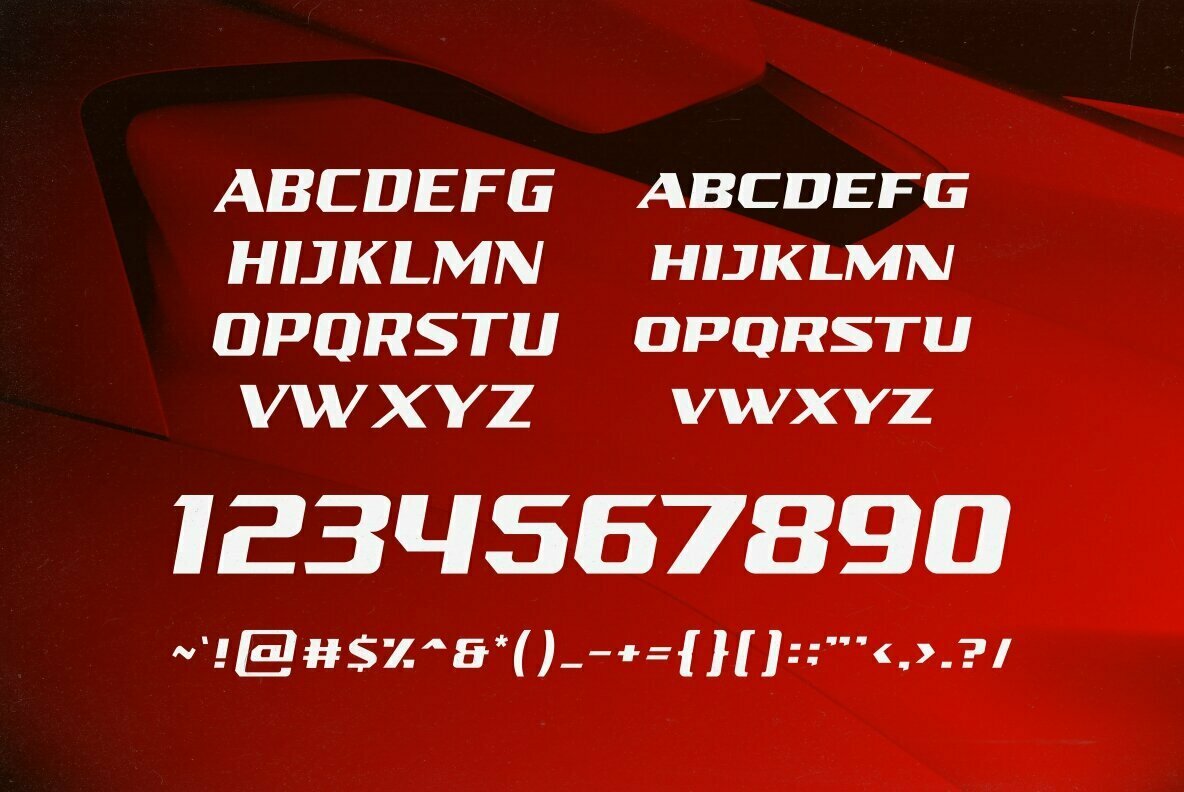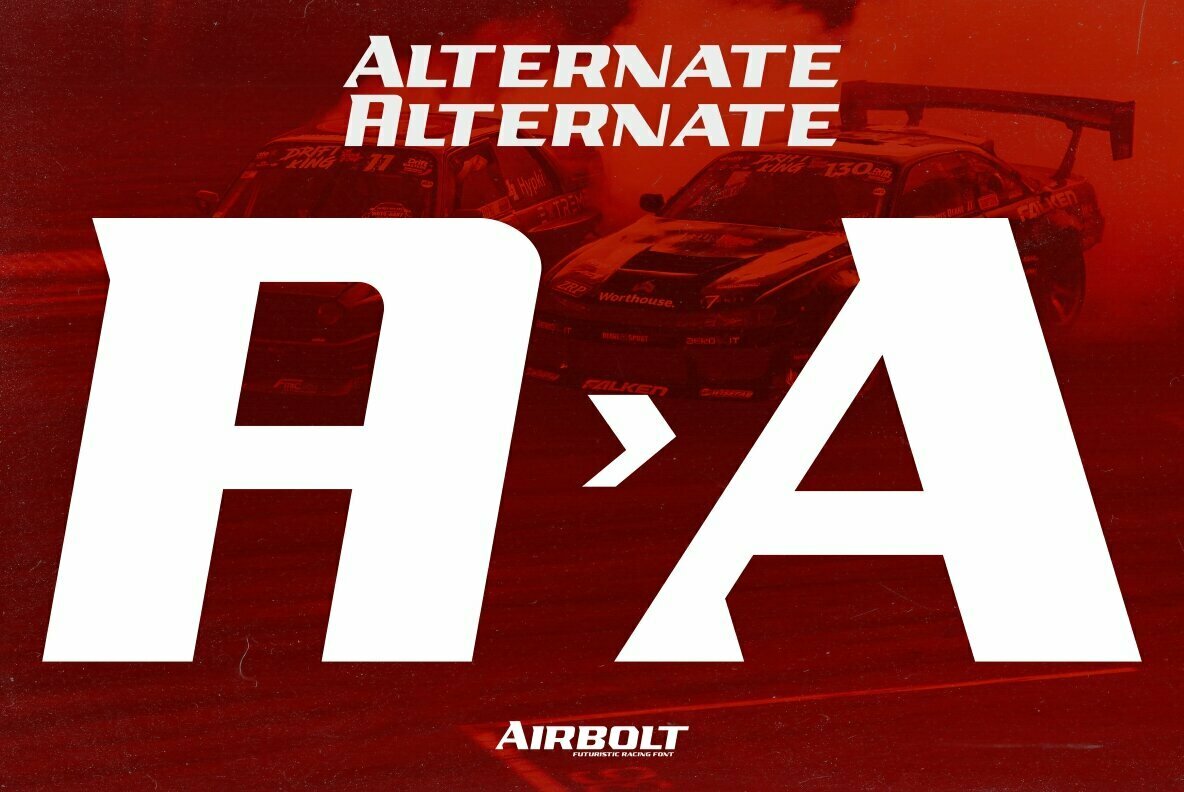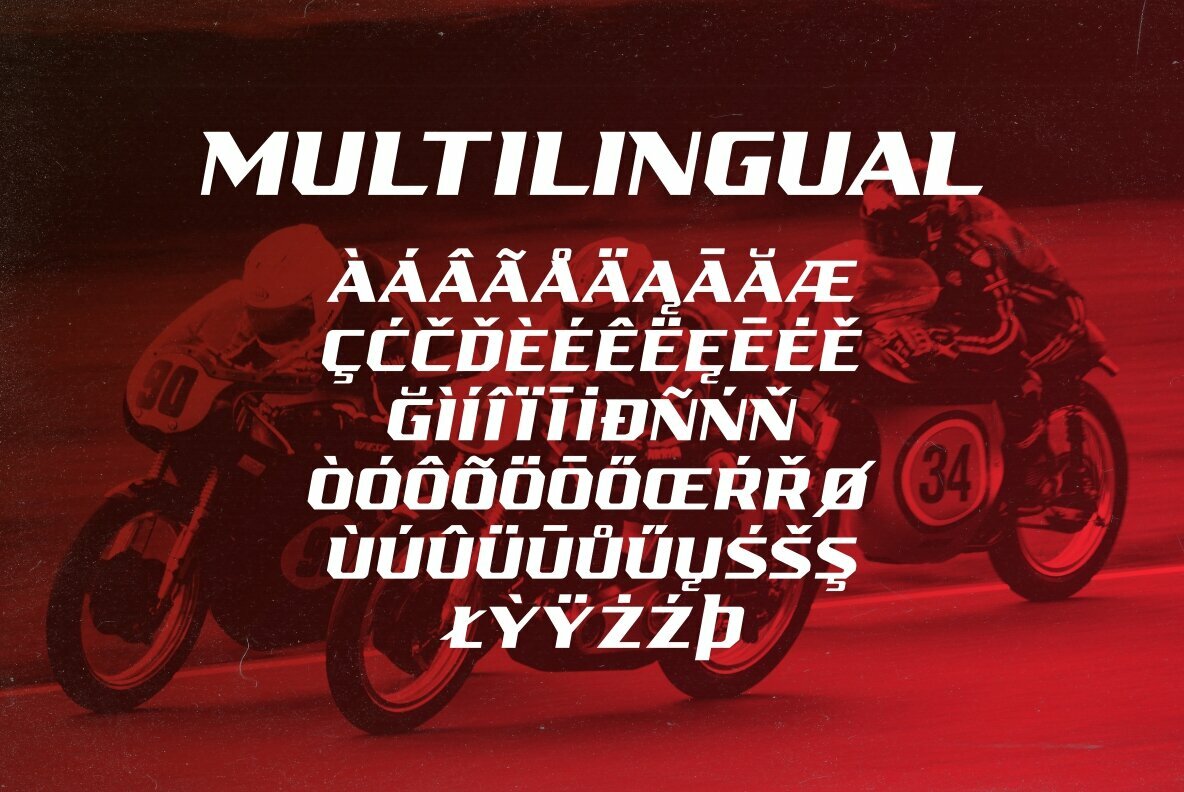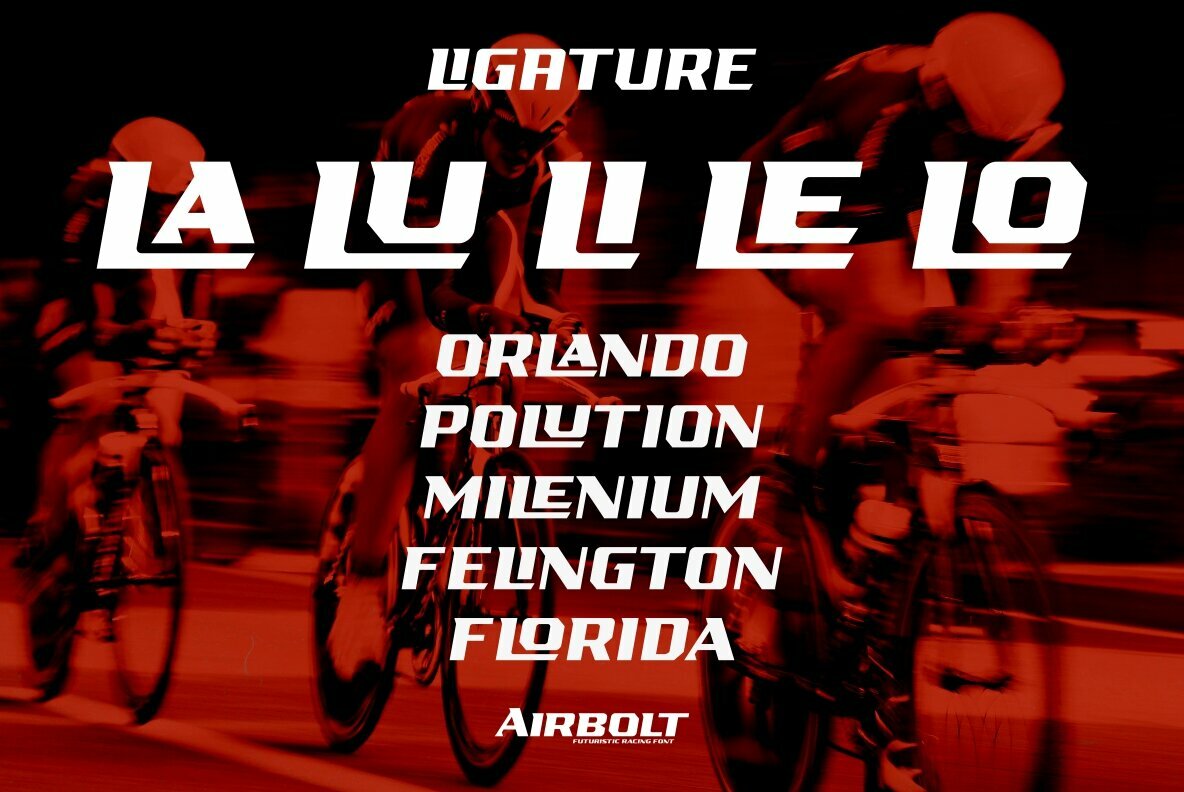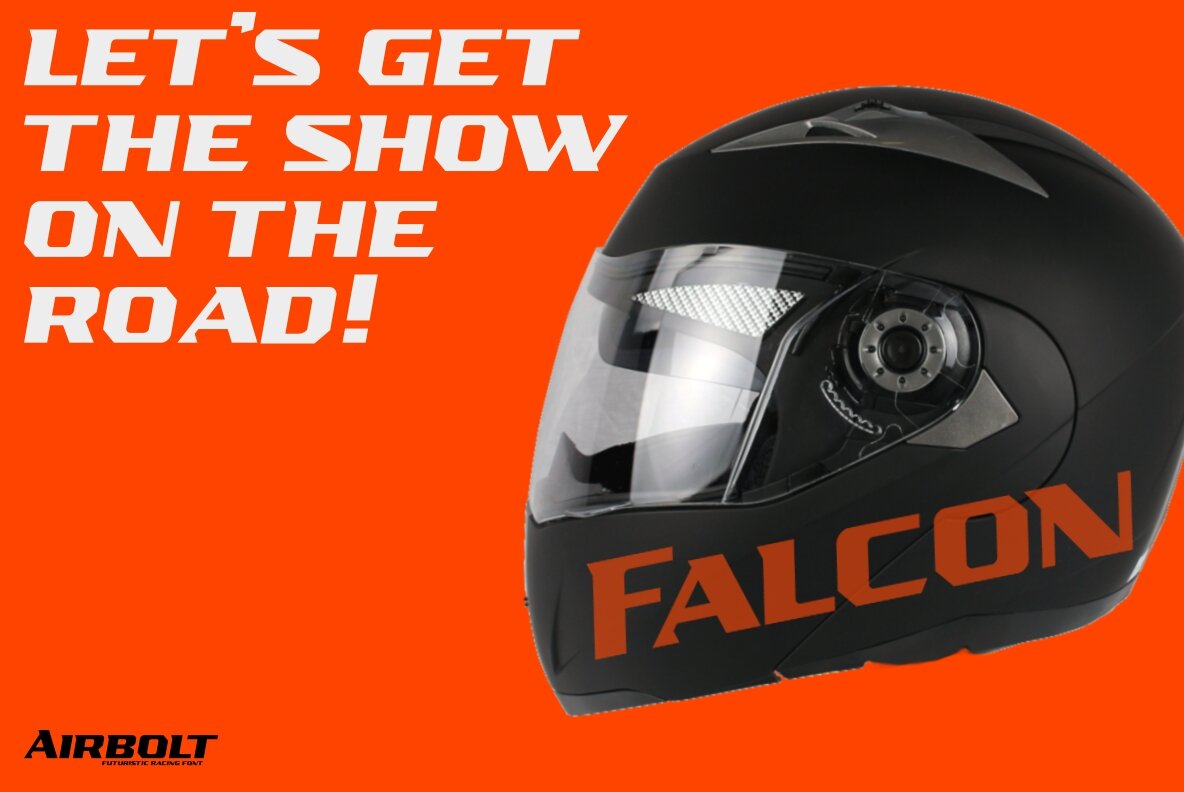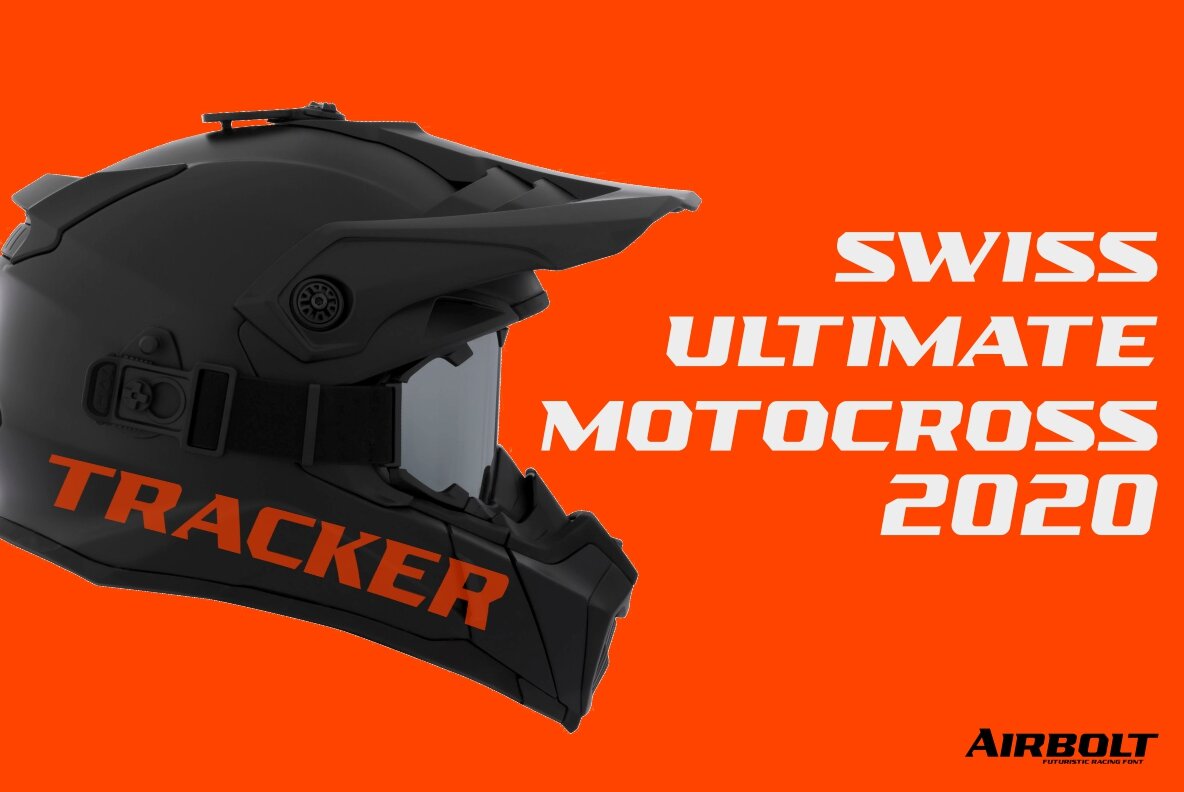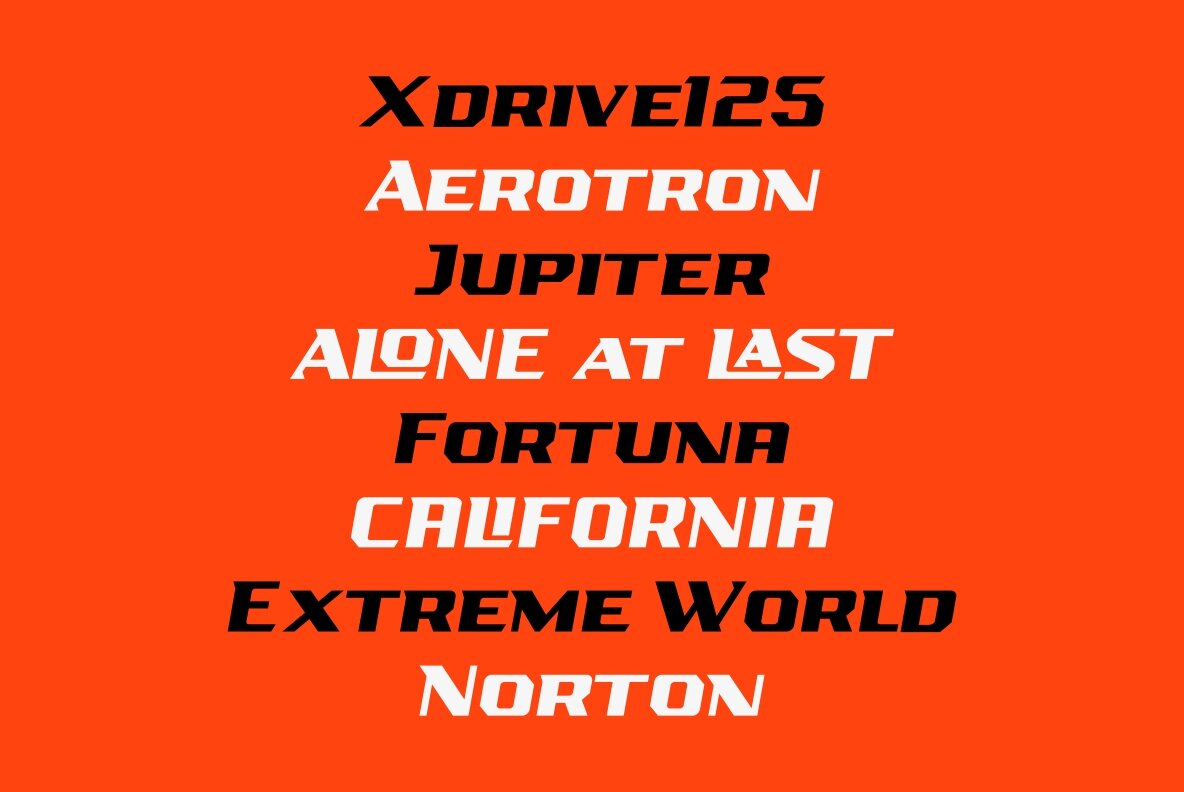
Airbolt Font
Airbolt
The Airbolt font from Bagerich Type Foundry represents a distinctive blend of sporty aesthetics and futuristic design. Its sharp lines and dynamic stance make it an ideal choice for designs that aim to convey speed and innovation. Whether crafting a bold statement or subtle undertones, Airbolt brings a modern edge to your creative projects. While it excels in these areas, Airbolt's versatility extends to a variety of design themes, adapting flawlessly to enhance the character and impact of your visual communication. Explore its unique capabilities and see how it transforms your work into a modern masterpiece.Airbolt: Sporty Futuristic Typeface
Bagerich Type Foundry is an independent digital type foundry with a focus on display typefaces. founded in Bandung, Indonesia in the middle of 2019 by graphic designer, Reza Rasenda and Riska Candra Dewi.